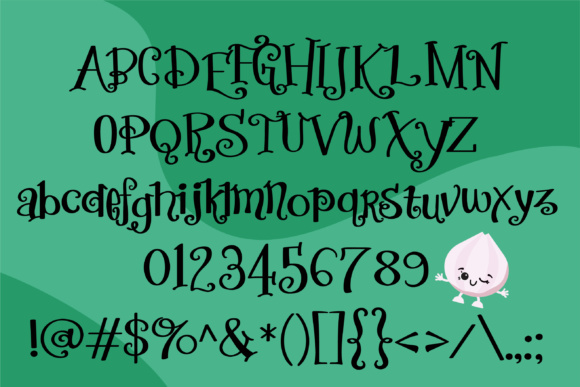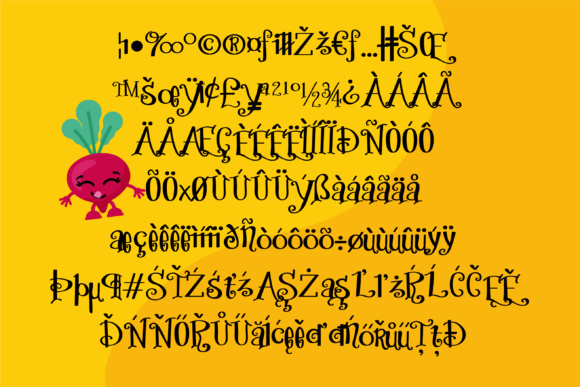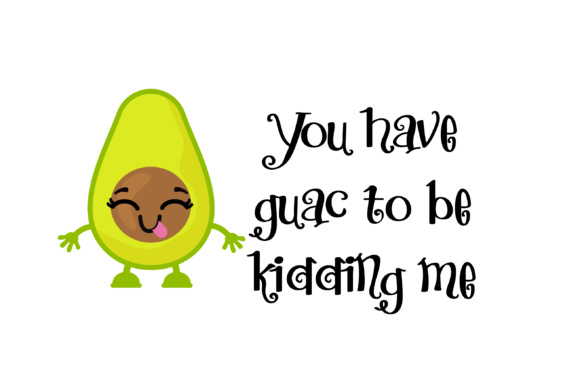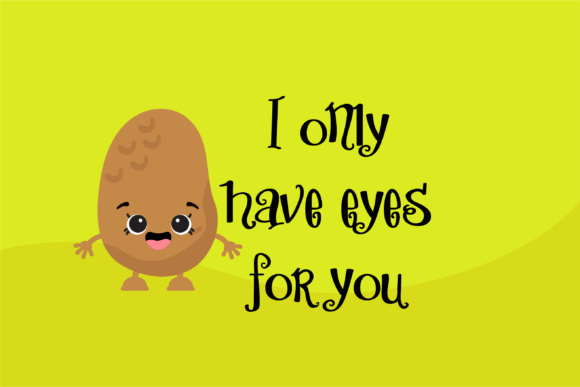
Eat Your Vegetables Font: A Whimsical Serif Delight
Are you tired of using the same old fonts in your designs? Look no further than the Eat Your Vegetables font, a charming serif font that’s sure to add a touch of whimsy to your projects. With its sporting curls and wonky baseline, this font is perfect for designers and crafters looking to add some personality to their work.
The Story Behind Eat Your Vegetables Font
Eat Your Vegetables is a handcrafted font that’s been carefully designed to bring a sense of playfulness and fun to your designs. The font’s creator, a talented typographer, was inspired by the classic serif fonts of the past, but with a modern twist. The result is a font that’s both nostalgic and fresh, with a unique character that’s sure to stand out.
What Makes Eat Your Vegetables Font So Special?
So, what sets Eat Your Vegetables apart from other fonts? Here are just a few of its standout features:
• Whimsical curls: The Eat Your Vegetables font features sporting curls throughout, adding a touch of elegance and sophistication to your designs.
• Wonky baseline: The font’s wonky baseline gives it a playful, hand-drawn feel that’s perfect for creating unique and eye-catching designs.
• Serif details: The font’s serif details add a touch of classic charm, making it perfect for designs that require a sense of tradition and heritage.
Eat Your Vegetables font is perfect for designers and crafters who want to add a personal touch to their work. Whether you’re creating:
• Invitations: Use Eat Your Vegetables to create unique and eye-catching invitations for weddings, parties, and other special occasions.
• Signs: The font’s bold, playful design makes it perfect for creating signs that need to stand out.
• Stationery: Add a touch of whimsy to your stationery with Eat Your Vegetables, perfect for creating unique and personalized letters and cards.
• Craft projects: The font’s hand-drawn feel makes it perfect for craft projects, such as papercraft, scrapbooking, and more.
Tips for Using Eat Your Vegetables Font
Here are a few tips for getting the most out of Eat Your Vegetables font:
• Use it sparingly: While Eat Your Vegetables is a beautiful font, it can be overwhelming if used too much. Use it sparingly to add emphasis and create visual interest.
• Pair it with other fonts: Eat Your Vegetables pairs well with other fonts, especially sans-serif fonts. Try pairing it with a clean, modern font to create a striking contrast.
• Experiment with colors: The font’s playful design makes it perfect for experimenting with different colors and textures. Try using it with bright, bold colors to create a fun and eye-catching design.
Eat Your Vegetables font is a unique and charming serif font that’s perfect for designers and crafters looking to add a touch of whimsy to their work. With its sporting curls and wonky baseline, this font is sure to stand out and add a personal touch to your designs. So why not give it a try and see what amazing creations you can come up with?